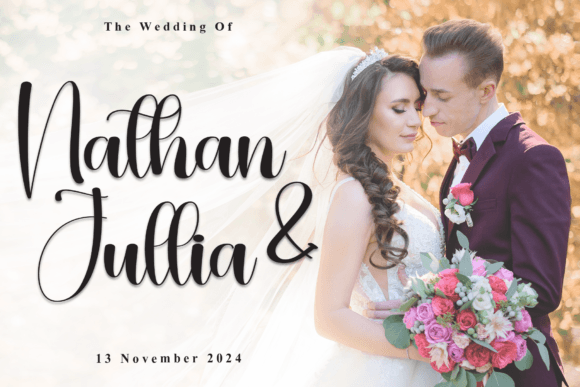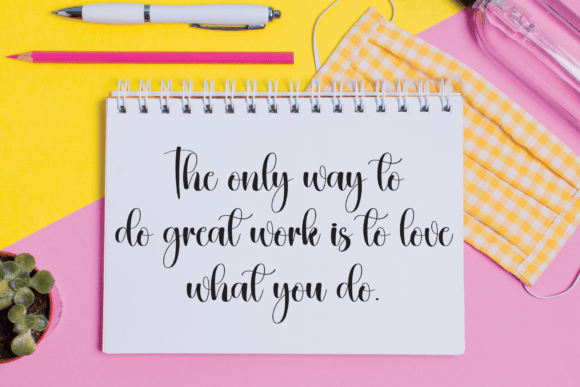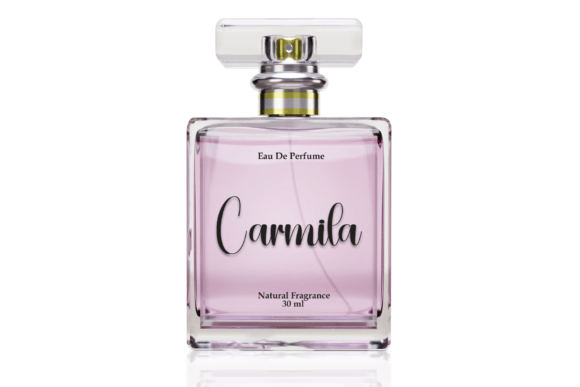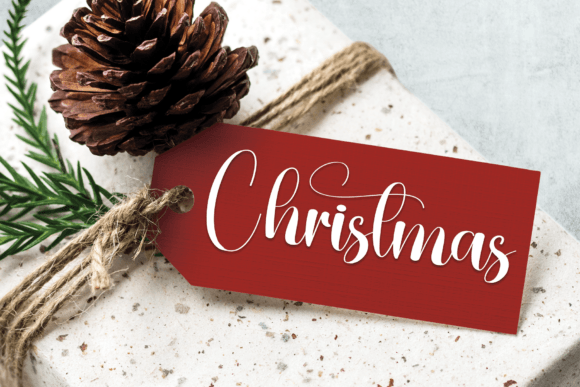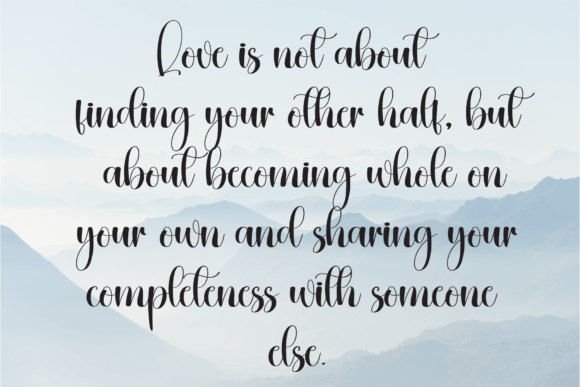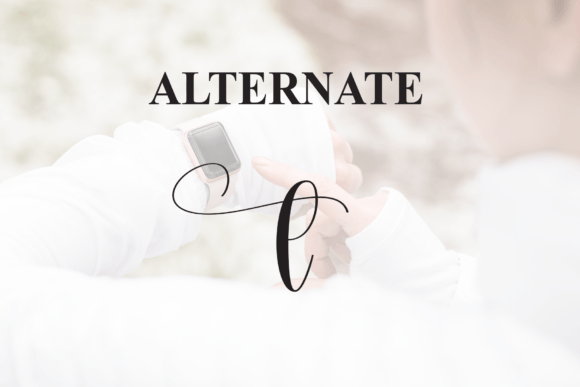
The Elusive Font: How Bridwatch Stole My Heart
I still remember the frustration of working on a project, hours spent searching for the perfect font, only to come up empty-handed. My client wanted something elegant, yet playful; delicate, yet impactful. I was on the verge of giving up when I stumbled upon Bridwatch Font. It was love at first sight! 💕
Bridwatch is a delicate, elegant, and flowing handwritten font that has beautiful and well-balanced characters. This versatility makes it match a wide pool of designs. In this article, I’ll share my experience with Bridwatch, its features, and how to make the most of it in your creative projects.
What I Love About Bridwatch ✨
• ✅ Elegant and flowing script with beautiful character balance
• ✅ Highly versatile and adaptable to various design projects
• ✅ Easy to read, even in smaller font sizes
• ✅ Perfect for creating a sophisticated, yet approachable feel
• ⚠️ Limited availability of condensed or expanded styles
• ⚠️ Some characters may require manual kerning for optimal results
Bridwatch font comes with a range of OpenType features, glyphs, and stylistic alternates. These can be accessed in compatible design software, such as Adobe Creative Cloud. Some common features include:
• Ligatures: Combine letters for a more elegant look
• Stylistic alternates: Switch between different font styles
• Glyphs: Access additional characters, such as ornaments or swashes
The Story Behind Bridwatch: Designer Inspiration
While the actual designer behind Bridwatch remains a mystery, it’s clear that they were inspired by the beauty of handwritten scripts. The font’s elegant flow and balanced characters evoke a sense of sophistication and refinement. Whether the designer was inspired by traditional calligraphy or modern handwriting, the result is a font that’s both timeless and versatile.
What type of projects is Bridwatch best suited for? Bridwatch is versatile and can be used in a wide range of projects, from branding and advertising to packaging and digital design.